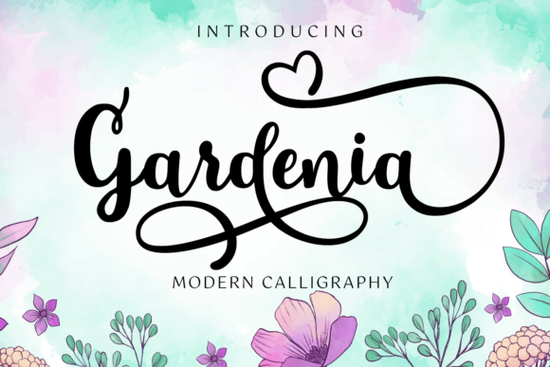
If you're looking for a handwritten font that blends classic charm with modern versatility, Gardenia is worth your attention. Designed with both elegance and practicality in mind, Gardenia works beautifully across headlines, body text, logos, packaging, and digital graphics making it a reliable choice whether you’re designing for print, web, or social media.
What sets Gardenia apart is its thoughtful balance between personality and readability. Unlike overly ornate script fonts that can become hard to read at smaller sizes, Gardenia maintains clarity even in longer blocks of text, thanks to its clean letterforms and subtle variations. At the same time, it carries enough character to stand out in display settings like posters, invitations, or product labels.
When should you use Gardenia?
Gardenia shines in projects that call for warmth and authenticity without sacrificing professionalism. Think:
- Branding for artisanal food, skincare, or boutique shops
- Wedding stationery and event signage
- Hand-lettered style quotes for wall art or social posts
- Print-on-demand products like mugs, tote bags, or greeting cards
Because it includes both maximum and minimum stylistic variations (often referred to as alternates or swashes), you can dial up the flair for a headline or keep things understated for body copy all within the same font family.
How does Gardenia compare to other handwritten fonts?
Among Creative Fabrica’s wide selection of script fonts, Gardenia holds its own by offering consistency across use cases. For example, if you’ve used Rose Cake for dessert-themed designs, you’ll appreciate how Gardenia provides a more neutral, adaptable alternative that still feels personal. Similarly, while Clover Fields leans into rustic whimsy and Sweet Honey offers bouncy sweetness, Gardenia sits comfortably in the middle refined but not stiff, friendly but not childish.
If you often work with stylish handwriting fonts for client branding, Gardenia adds another dependable option to your toolkit one that doesn’t rely on excessive ligatures or complex OpenType features to look good. And for those who love the mysterious elegance of The Secret, Gardenia delivers comparable sophistication with broader legibility.
Tips for getting the most out of Gardenia
To make your designs feel intentional and polished, consider these practical suggestions:
- Pair it wisely. Gardenia pairs well with simple sans-serifs like Montserrat, Lato, or even a clean serif like Merriweather. Avoid combining it with other decorative scripts let Gardenia be the star.
- Use stylistic alternates selectively. Most design software (like Adobe Illustrator or Canva Pro) lets you access alternate characters. Use them to add visual interest to key words, but don’t overdo it consistency matters.
- Test at multiple sizes. While Gardenia works in body text, always preview your final output. On small product labels or mobile screens, simplify your layout to ensure readability.
- Consider context. A bakery logo might benefit from Gardenia’s softer curves, while a wellness brand could use it for subheadings to convey approachability.
Remember: a great font supports your message it doesn’t distract from it. Gardenia succeeds because it enhances communication rather than competing with it.
Who is Gardenia best for?
This font is especially useful for:
- Small business owners creating their own marketing materials
- Print-on-demand sellers designing evergreen products like journals or apparel
- Crafters making custom vinyl decals, embroidery patterns, or hand-stamped goods
- Freelance designers building versatile brand kits for clients in lifestyle niches
Before you finalize your next project, ask yourself: does this font help tell the story I want? With Gardenia, the answer is often yes because it speaks clearly, warmly, and with just the right amount of style.